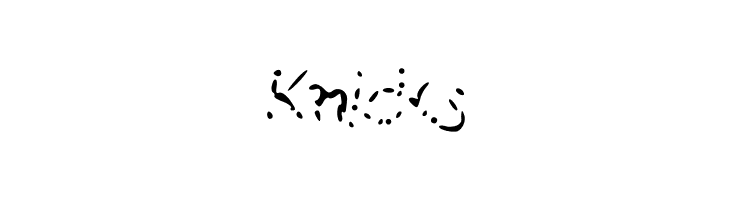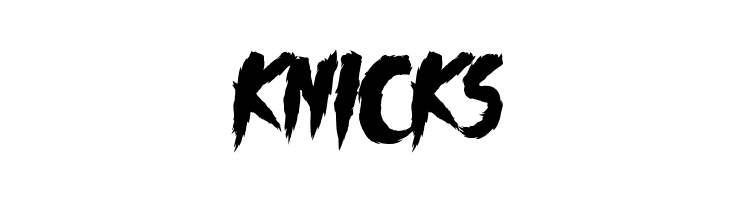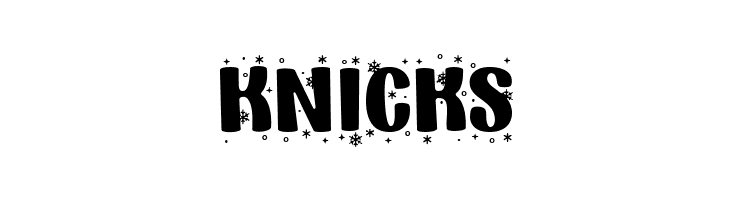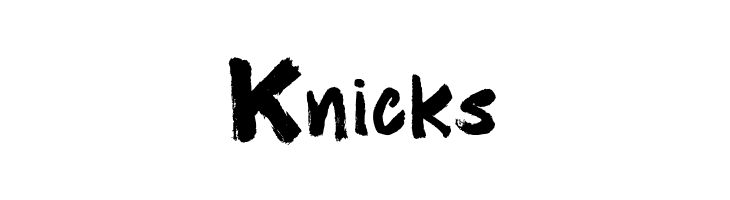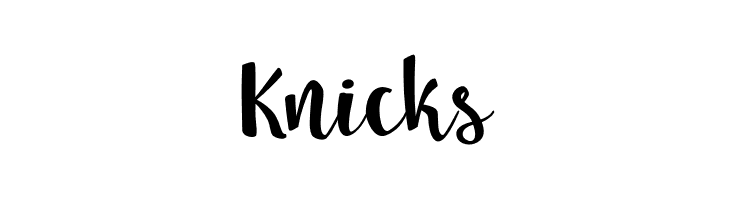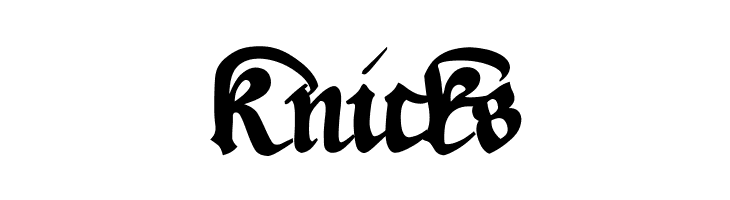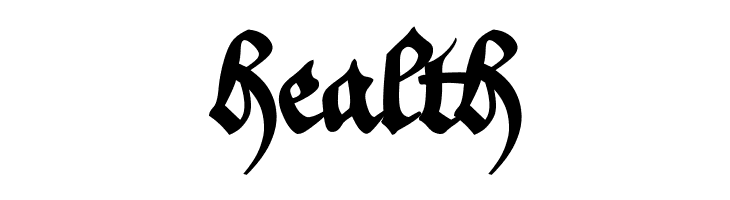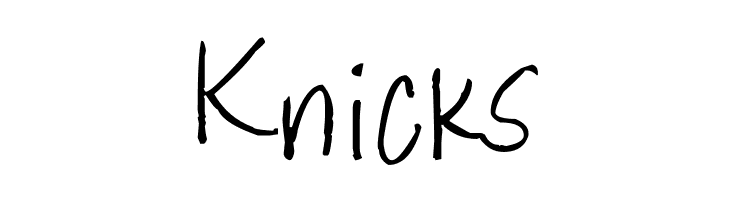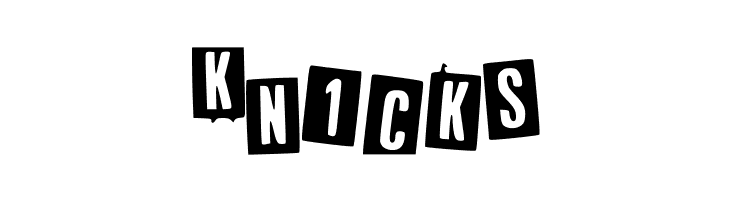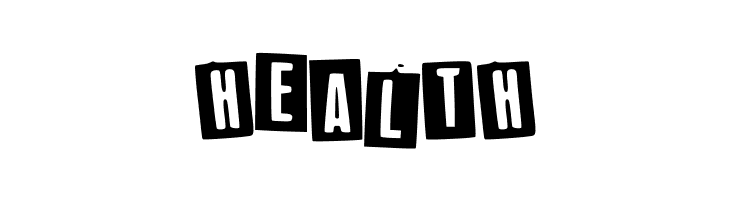
• Be Natural
A playful, hand-drawn font with elongated, quirky letterforms.
• jandle Regular
A playful and dynamic script font with a handwritten feel.
• Suburban Pledge
A dynamic and elegant script font with flowing curves and a modern touch.
• Thurdy Sicks_PersonalUseOnly
A bold, brush-style font with a dynamic and handcrafted appearance.
• ___Devastation
• _a e i o u
A bold, ornate blackletter font with a medieval flair.
• _Busy_Bees
A playful, dot-based font with a whimsical, bee-like appearance.
• _CHAOS! DEMO
A bold, jagged font with a chaotic and energetic style.
• _Holiday * Snowflakes_ Regular
A festive, snowflake-adorned font perfect for holiday-themed designs.
• _WestCoast_
A playful, handwritten font with varied stroke thickness and a casual style.